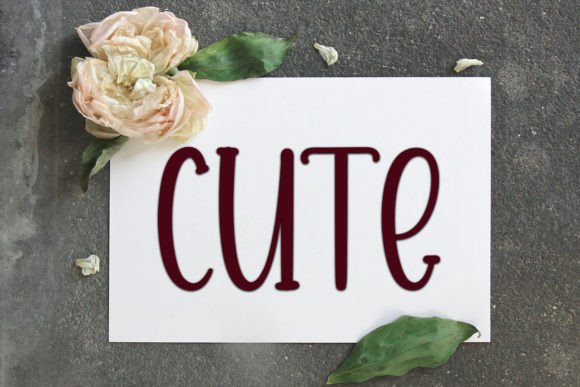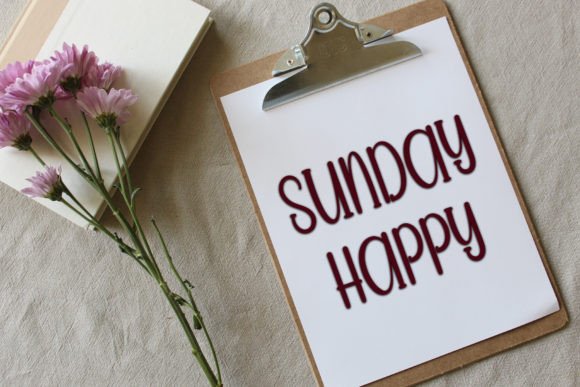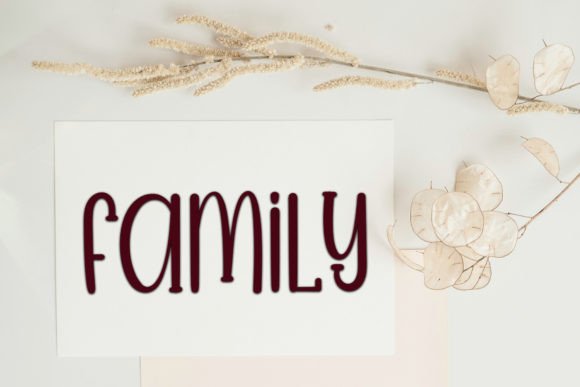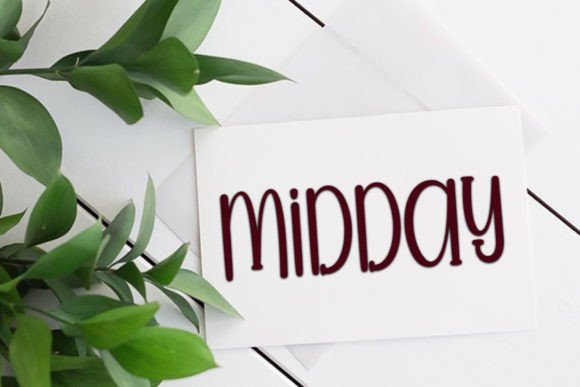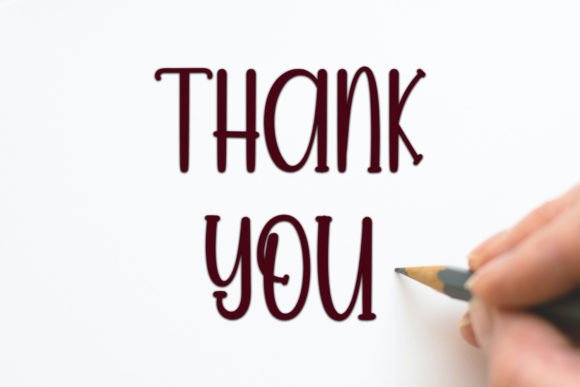
The Ultimate Guide to Funny Kids Font: Adding a Touch of Whimsy to Your Designs
I’ll never forget the time I was working on a project for a children’s birthday party invitation. I had the design concept all figured out, but I was stuck on finding the perfect font to match the playful and fun theme. That’s when I stumbled upon the Funny Kids font, and it instantly became the missing piece to my design puzzle. In this article, I’ll share my love for this beautiful handwritten font, its features, and how to make the most of it in your designs.
An Honest Review of Funny Kids Font
Here’s what I love about Funny Kids font:
- ✨ Elegant and neat handwritten style with a timeless touch
- ✅ Incredibly distinct and versatile for various design projects
- 💕 Perfect for designs that require a personal and friendly feel
While Funny Kids font is amazing, there are a few quirks to keep in mind:
- 🤔 Limited availability of stylistic alternates, which might restrict design variations
- ⚠️ May not be suitable for very formal or corporate designs due to its playful nature
The Story Behind Funny Kids Font
Funny Kids font was designed with the intention of creating a beautiful, handwritten font that captures the innocence and playfulness of childhood. The designer aimed to create a font that would be perfect for designs that require a personal touch, such as party invitations, children’s books, or educational materials.
| What type of designs is Funny Kids font best suited for? | Funny Kids font is perfect for designs that require a playful and personal touch, such as party invitations, children’s books, or educational materials. |